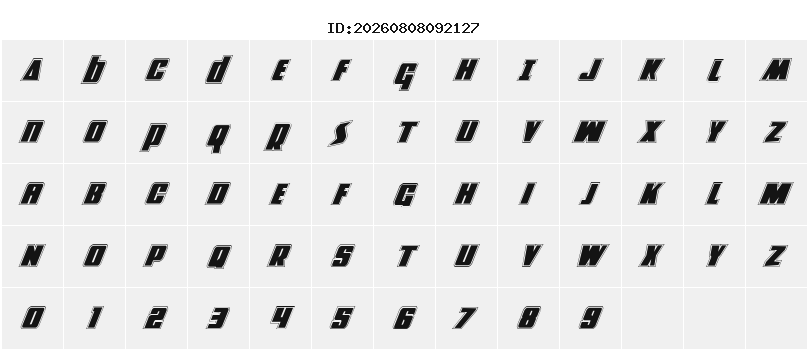
• Font Name: Power Lord Academy Italic
• Full Font Name: Power Lord Academy Italic
About Power Lord Academy Italic.ttf
Power Lord Academy Italic.ttf is a modern, elegant sans-serif font designed for ultimate readability and visual harmony. Perfect for branding, headlines, web design, and print materials.